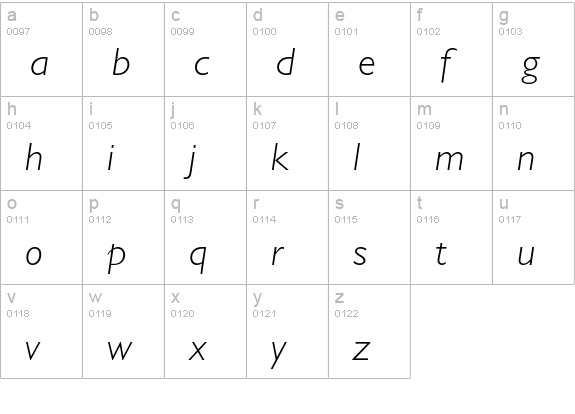
Gentle Italic Font Details
Gentle Italic is a distinctive, italic variant in the Gentle typeface family \xE2\x80\x94 well suited to design and typography projects.
The Gentle Italic font exudes elegance and sophistication with its delicate curves and graceful slant. Its subtle italicized style adds a touch of refinement to any design project, making it perfect for wedding invitations, branding, and editorial layouts. The soft, flowing lines of Gentle Italic create a sense of calm and tranquility, making it a versatile choice for both digital and print applications. Best of all, Gentle Italic is available for free download at FontsMarket.com. This means you can easily access this beautiful font and enhance your creative projects without any cost. Don't miss out on the opportunity to elevate your designs with the timeless charm of Gentle Italic. Download it today and add a touch of sophistication to your work.